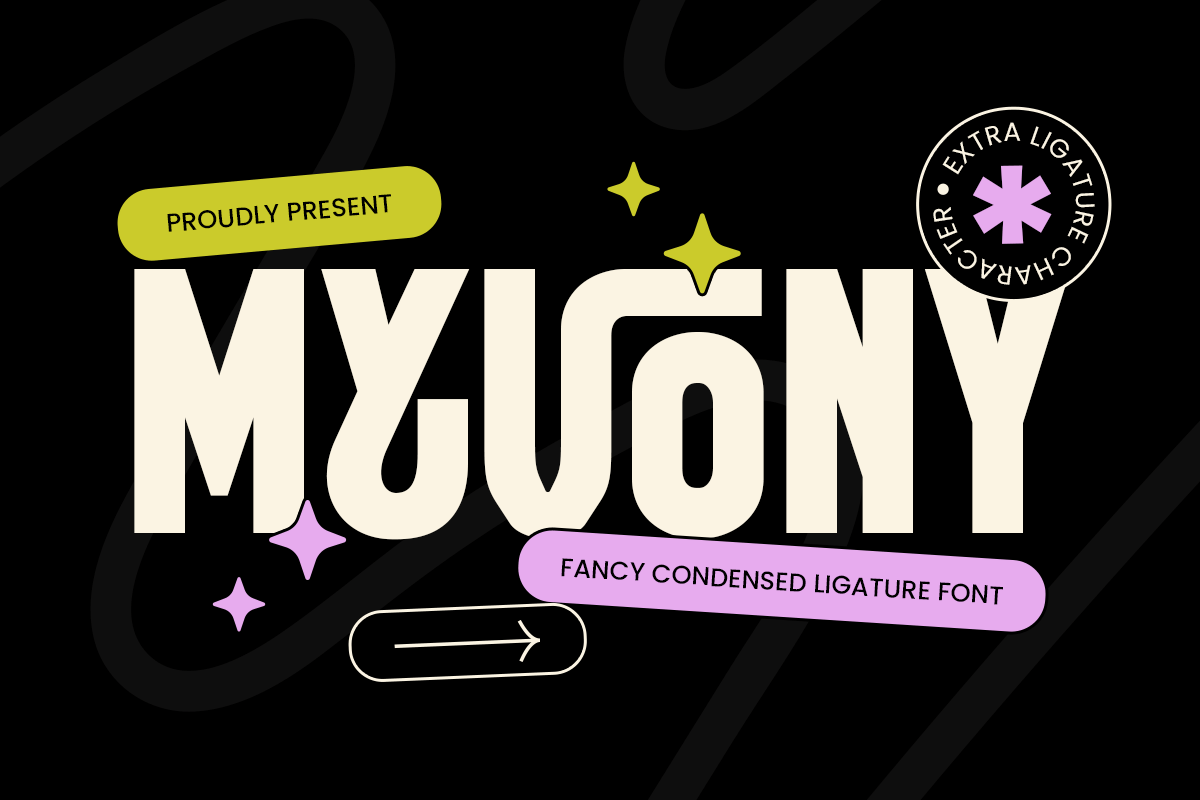
Myvony
-Headline Condensed Ligature Tall Font
Myvony is a modern tall condensed font with unique ligatures designed to stand out in bold branding and artistic layouts. Its sleek form and narrow width create a strong visual identity, making it perfect for logos, creative headings, and brand design.
Crafted with artistic flair, Myvony merges modern with creative. The distinctive ligatures and refined proportions make it ideal for high-impact use in modern logo design, branding, packaging, posters, and editorial titles. From startup identities to art brand visuals, Myvony brings both structure and style to your typography, offering versatility across digital and print formats.
Myvony – Fancy Condensed Ligature Font Features
• Fancy tall condensed letterforms
• Unique ligature & alternate characters
• Punctuation, numbers, and symbols included
• Uppercase and lowercase letters in same high
• OpenType features for advanced typography